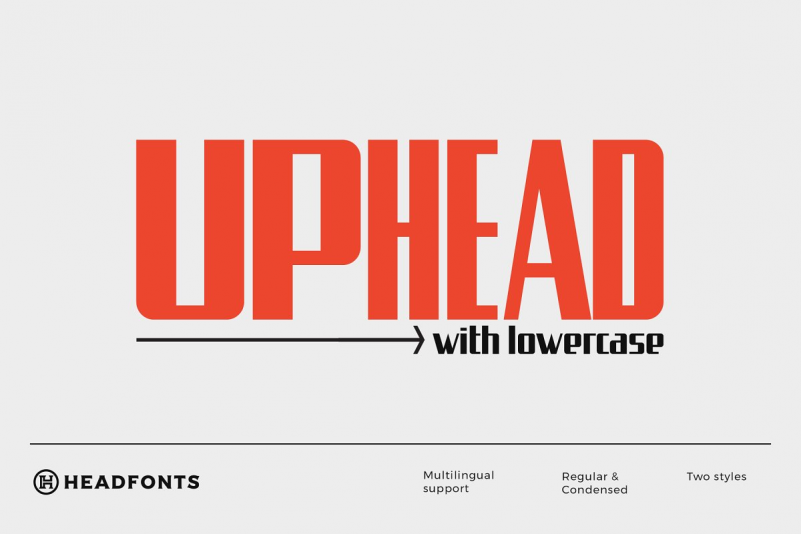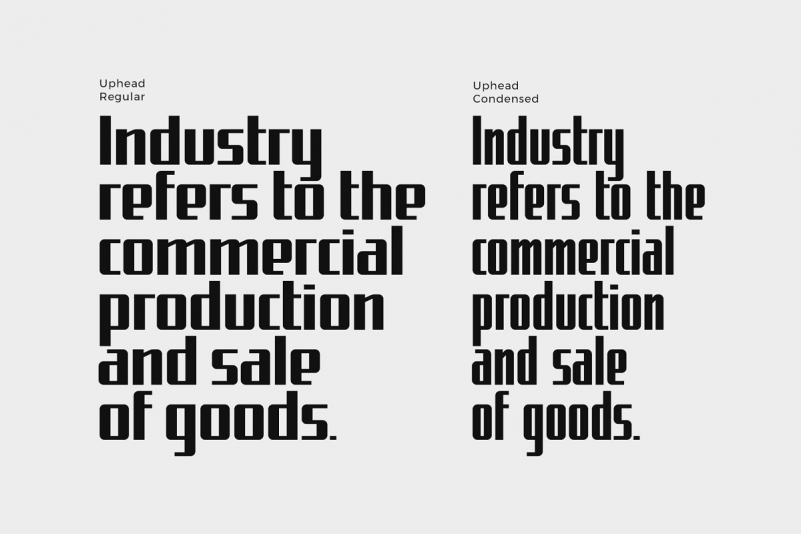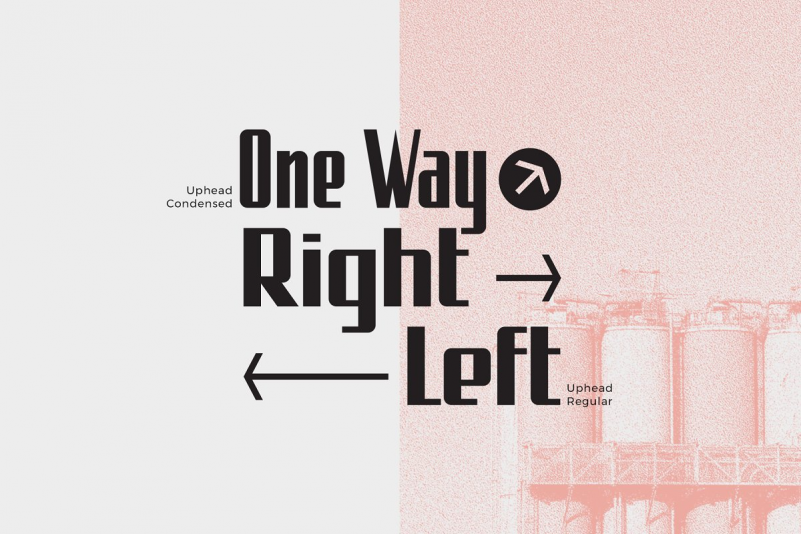
Uphead Font
UPHEAD is an upper and lowercase sans serif industrial style font. This font is inspired by the street signs of Eastern Europe and has a nice balance of hard lines and smooth curves, but still maintaining a strong appearance with modern touches. UPHEAD includes two styles, Uphead Regular and Updead Condensed, for both styles extensive Latin script language support, characters set A-Z , numerals and punctuation. Uphead is the perfect font for industrial logo designs, headers, small and block text.